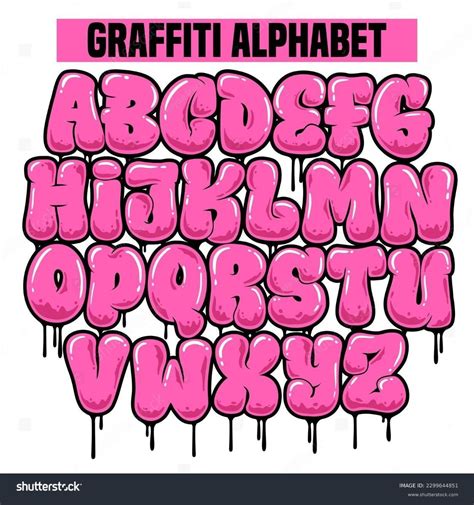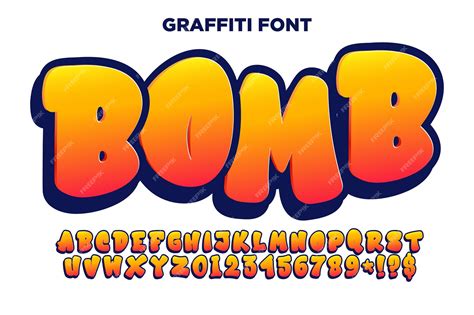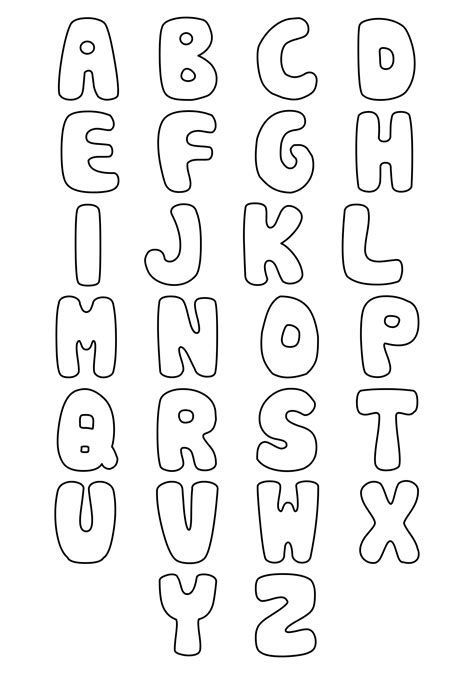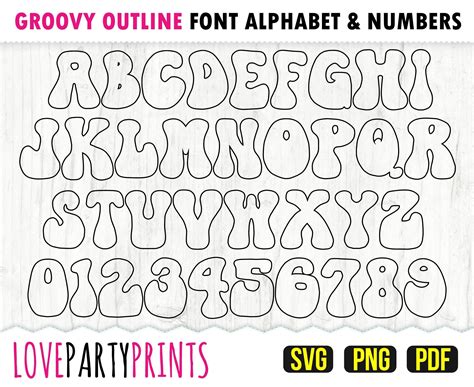
Embarking on a journey into the world of typography can be an exciting adventure, especially when you delve into the whimsical and playful realm of the Bubble Font Alphabet. This unique style of lettering has captured the imagination of designers, educators, and enthusiasts alike, offering a fresh and engaging way to communicate messages. Whether you're looking to add a touch of fun to your designs or create educational materials that captivate young minds, the Bubble Font Alphabet is a versatile tool that can bring your projects to life.
Understanding the Bubble Font Alphabet
The Bubble Font Alphabet is characterized by its round, bubbly shapes that resemble speech bubbles or balloons. Each letter is designed to be playful and inviting, making it an excellent choice for projects that aim to evoke a sense of joy and creativity. This font style is particularly popular in children’s books, educational materials, and digital media where a friendly and approachable aesthetic is desired.
History and Evolution
The origins of the Bubble Font Alphabet can be traced back to the early days of graphic design, where designers sought to create fonts that were both visually appealing and easy to read. Over the years, the style has evolved, incorporating modern design elements and digital techniques to enhance its appeal. Today, the Bubble Font Alphabet is widely used in various mediums, from print to digital, and continues to be a favorite among designers and educators.
Applications of the Bubble Font Alphabet
The versatility of the Bubble Font Alphabet makes it suitable for a wide range of applications. Here are some of the most common uses:
- Educational Materials: The Bubble Font Alphabet is often used in educational settings to teach children the alphabet. Its playful design makes learning fun and engaging.
- Children’s Books: Many children’s books feature the Bubble Font Alphabet to create a visually appealing and child-friendly reading experience.
- Digital Media: In the digital world, the Bubble Font Alphabet is used in websites, apps, and social media to create a friendly and approachable tone.
- Branding and Marketing: Companies looking to convey a sense of fun and creativity often incorporate the Bubble Font Alphabet into their branding and marketing materials.
Creating Your Own Bubble Font Alphabet
If you’re inspired to create your own Bubble Font Alphabet, here are some steps to guide you through the process:
Step 1: Choose Your Tools
Select the tools you will use to create your Bubble Font Alphabet. Popular choices include graphic design software like Adobe Illustrator, CorelDRAW, or even free tools like Inkscape. Each of these tools offers a range of features that can help you bring your design to life.
Step 2: Sketch Your Design
Begin by sketching your design on paper. This step allows you to experiment with different shapes and sizes before committing to a digital format. Focus on creating round, bubbly shapes that are easy to recognize as letters.
Step 3: Digitalize Your Sketch
Once you have a sketch you’re happy with, scan or photograph it and import it into your chosen graphic design software. Use the software’s tools to trace over your sketch, refining the shapes and adding details as needed.
Step 4: Refine and Finalize
Refine your design by adjusting the curves, adding shadows or highlights, and ensuring that each letter is consistent in style. Pay attention to the spacing between letters to ensure readability. Once you’re satisfied with your design, save it in a format that can be easily shared or printed.
💡 Note: When creating your own Bubble Font Alphabet, consider the readability of each letter. Ensure that the design is clear and easy to recognize, especially if it will be used in educational materials.
Popular Bubble Font Alphabet Examples
There are numerous examples of the Bubble Font Alphabet that have gained popularity over the years. Here are a few notable ones:
| Font Name | Description |
|---|---|
| Bubblegum Sans | A playful and colorful font that features rounded letters with a retro feel. |
| Comic Sans | While not exclusively a Bubble Font Alphabet, Comic Sans features rounded letters that give it a bubbly appearance. |
| Bubble Font | A classic example of the Bubble Font Alphabet, featuring large, round letters that resemble speech bubbles. |
Tips for Using the Bubble Font Alphabet
To make the most of the Bubble Font Alphabet in your projects, consider the following tips:
- Keep It Simple: Avoid overcomplicating your design. The Bubble Font Alphabet is best when it remains simple and easy to read.
- Use Contrasting Colors: Pair your Bubble Font Alphabet with contrasting colors to make it stand out. Bright colors can add to the playful nature of the font.
- Consider the Context: Think about where and how your Bubble Font Alphabet will be used. Ensure that it fits well with the overall design and message of your project.